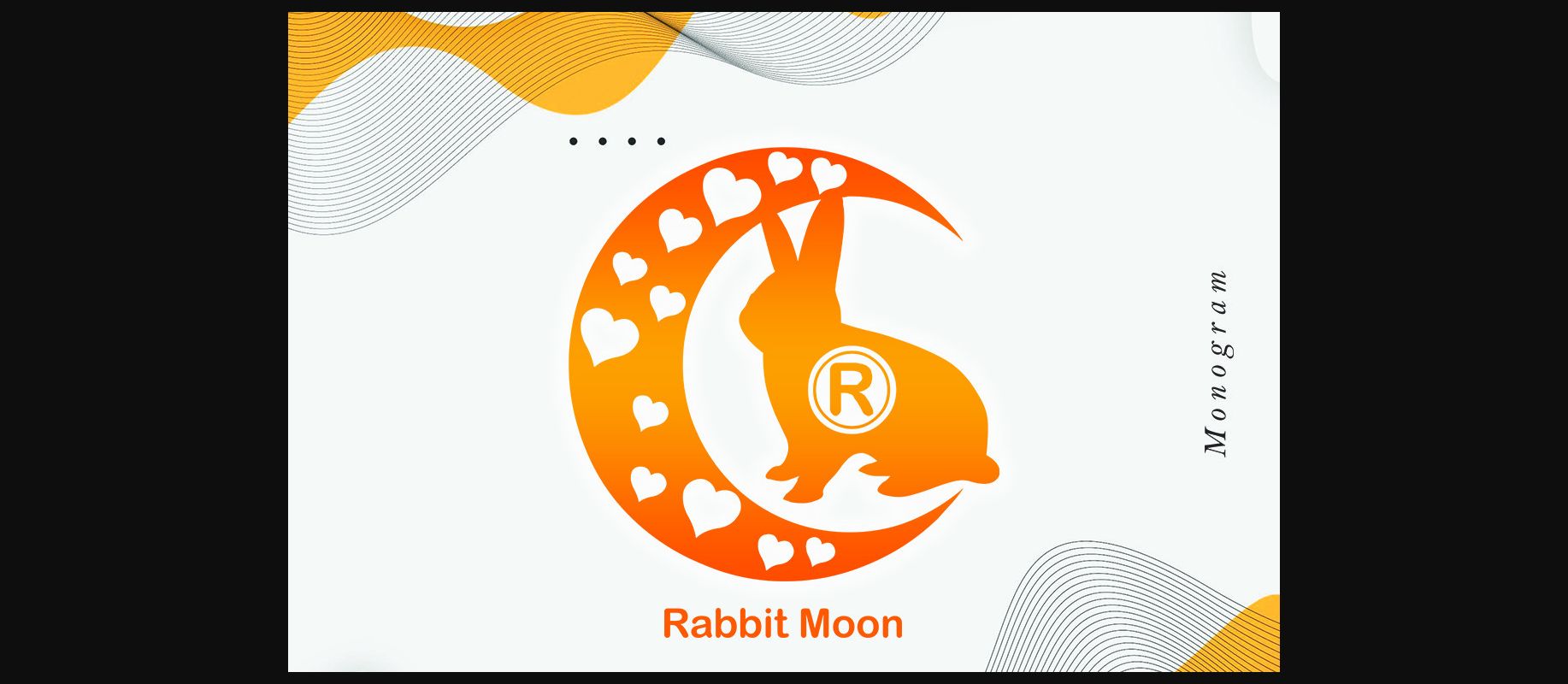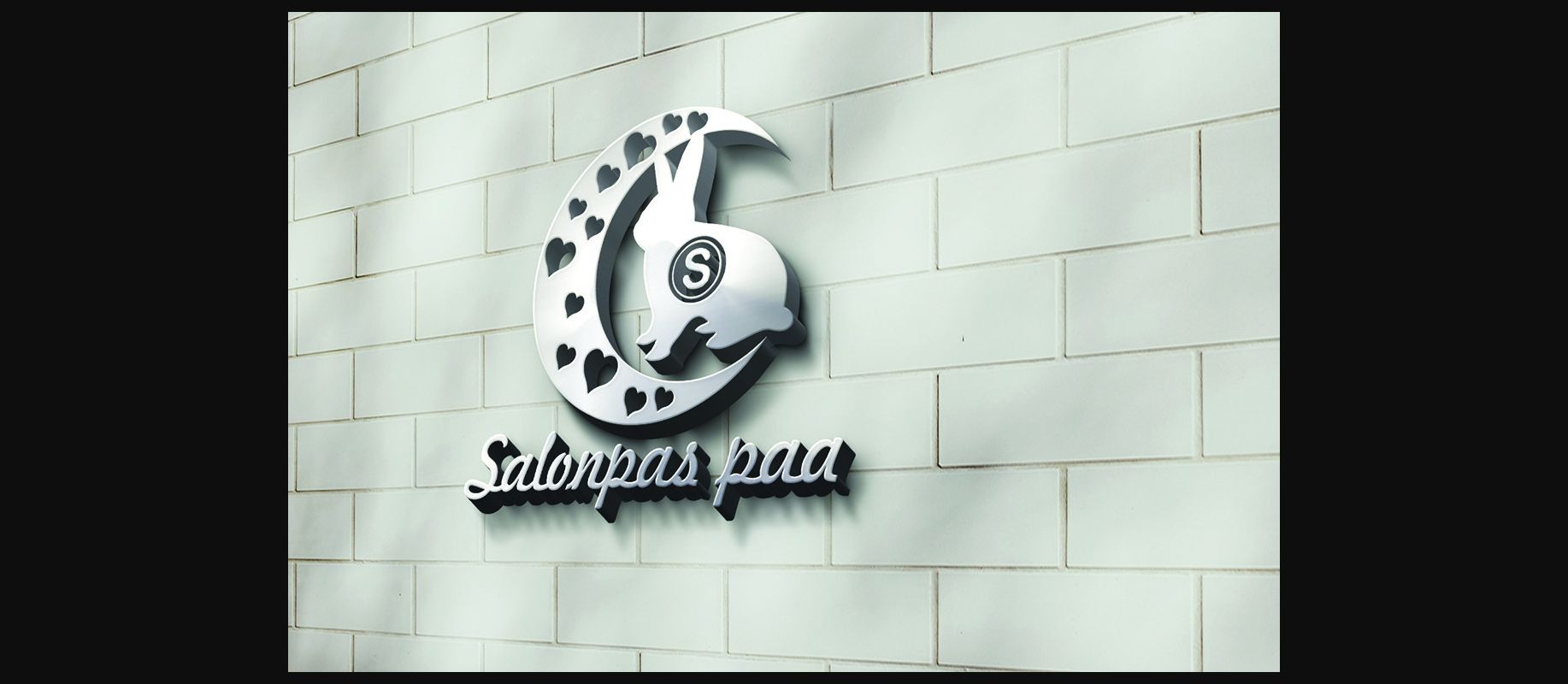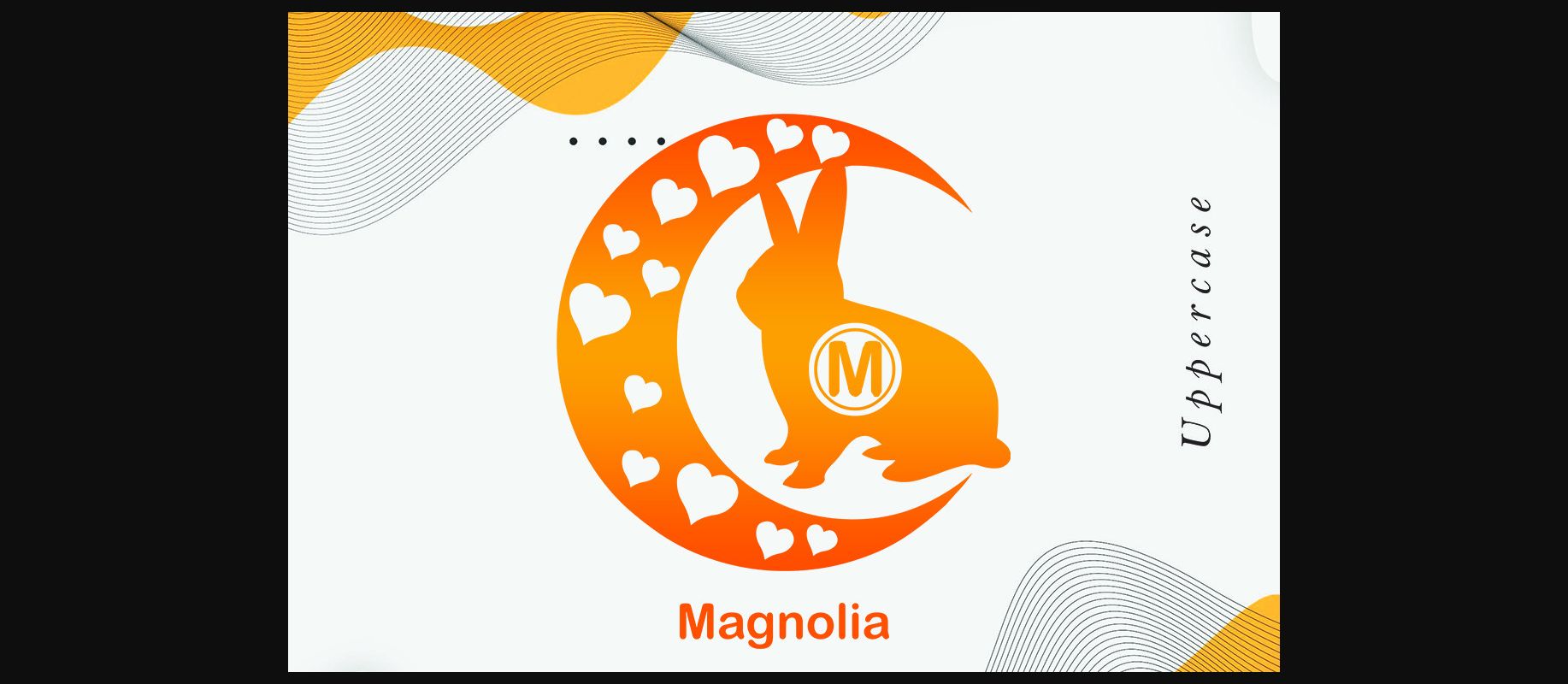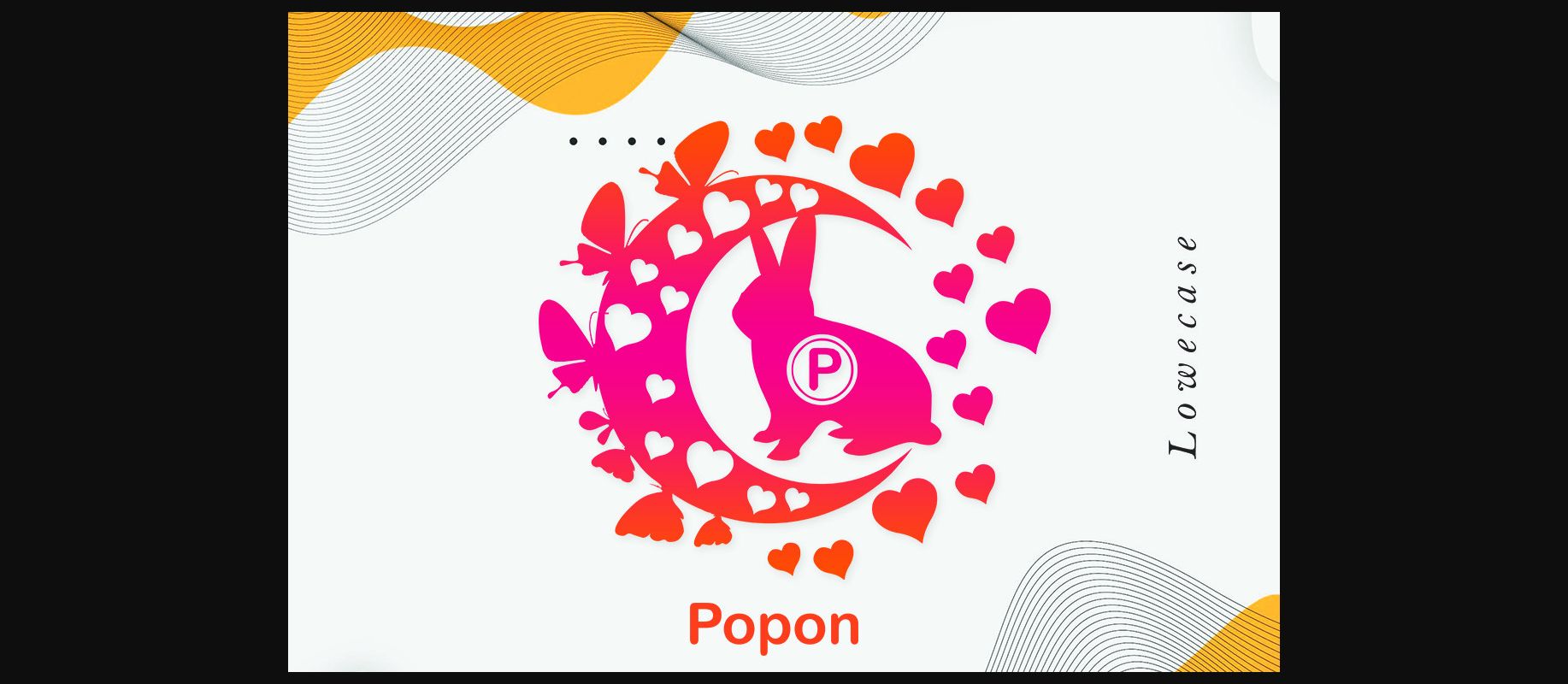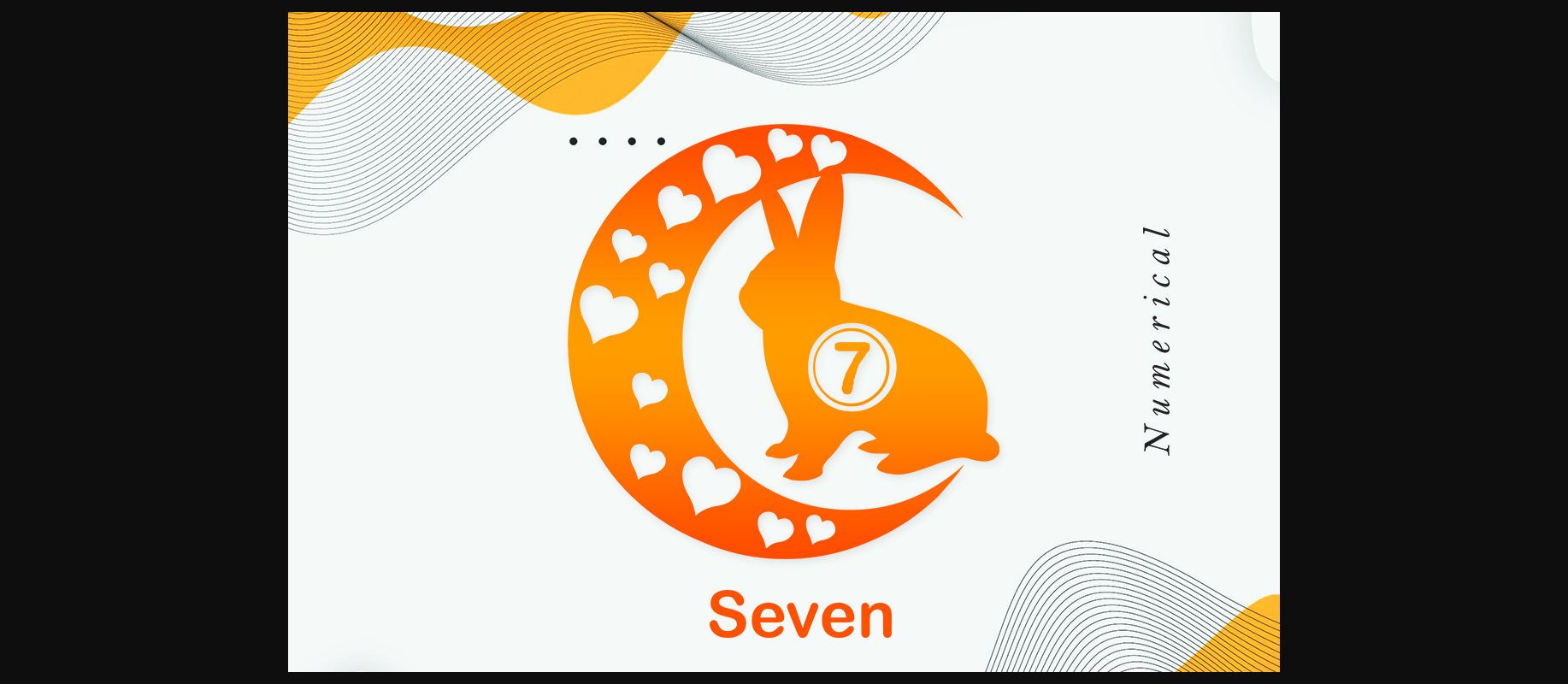
About Rabbit Moon Font
Rabbit Moon is a dainty and unique decorative font. Add this romantic and lovely-looking font to each of your love letters, wedding invitations, or favorite design ideas, and you will be astounded by the outcome!